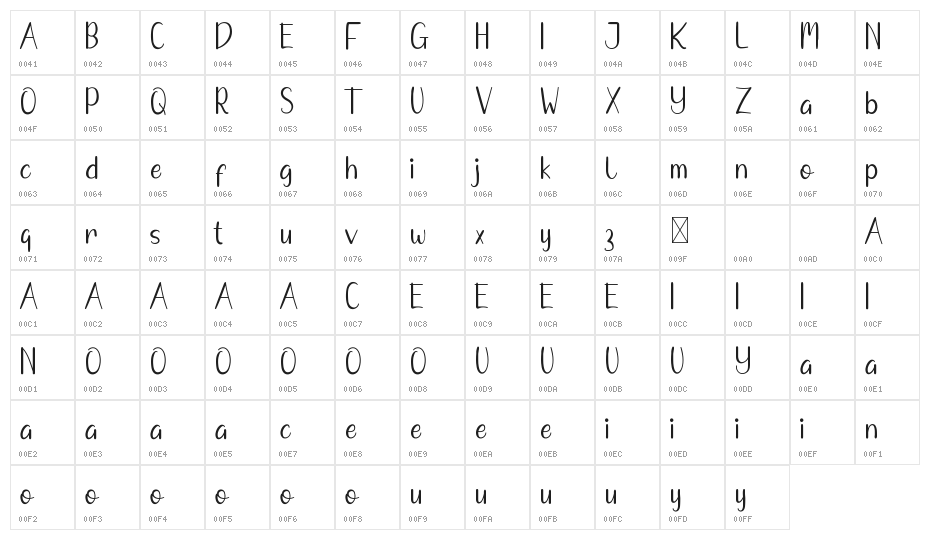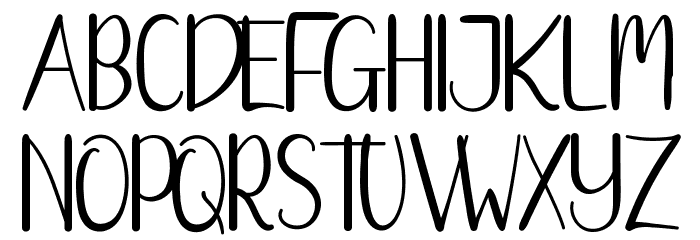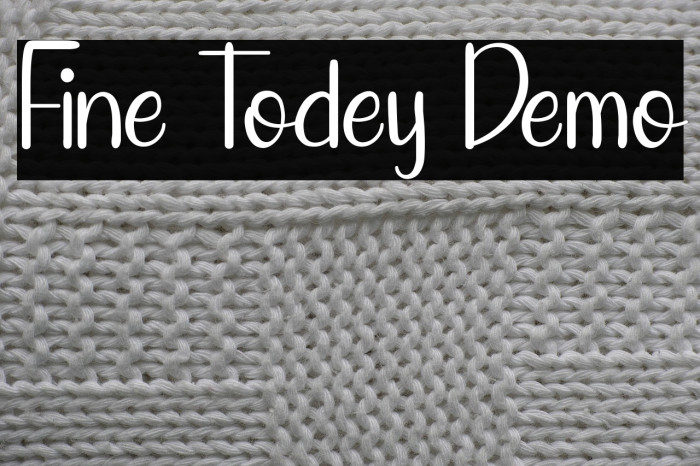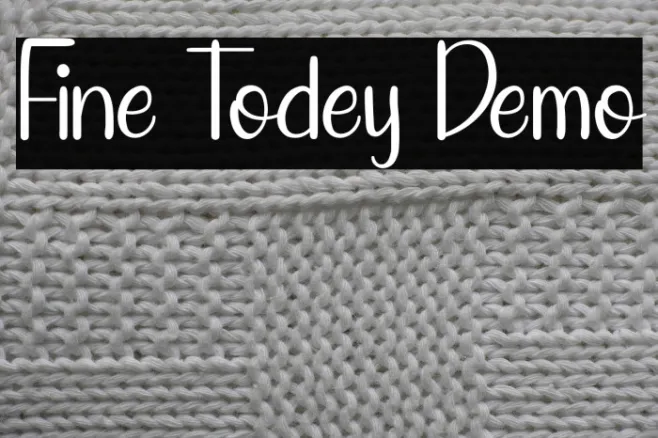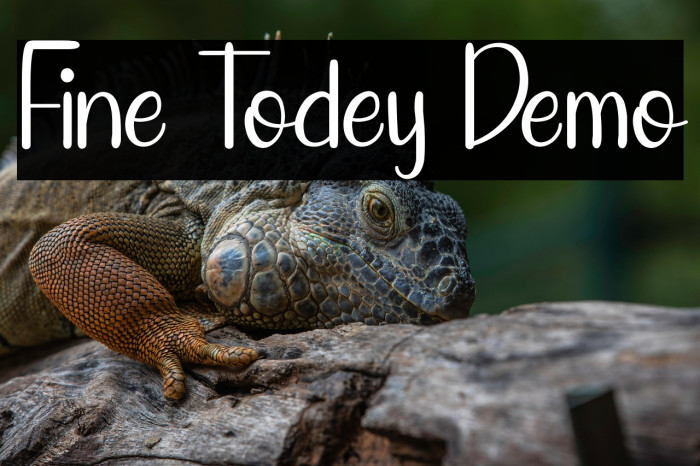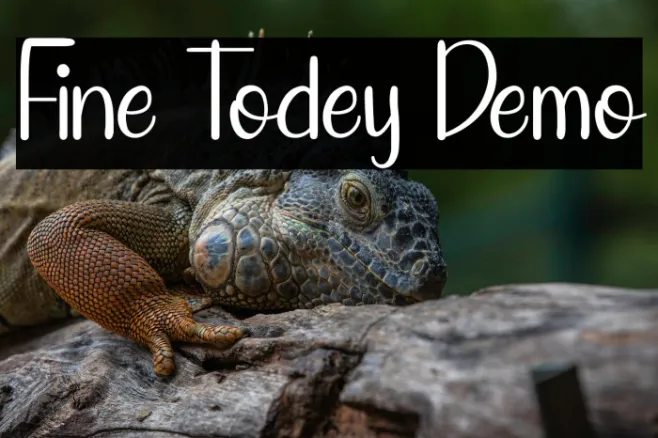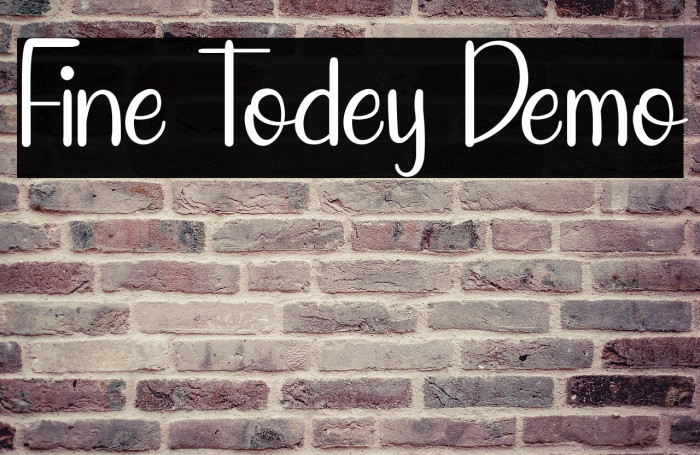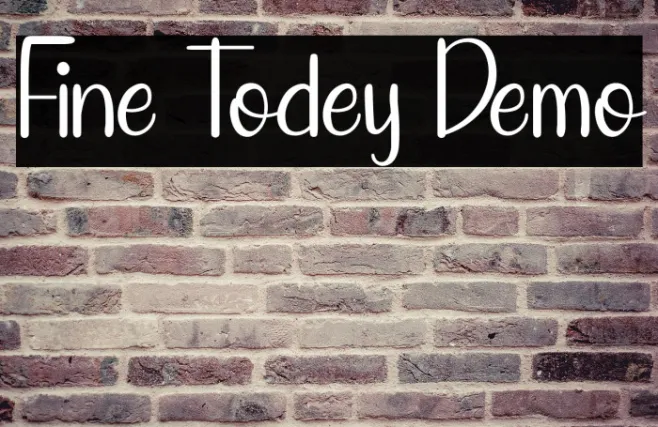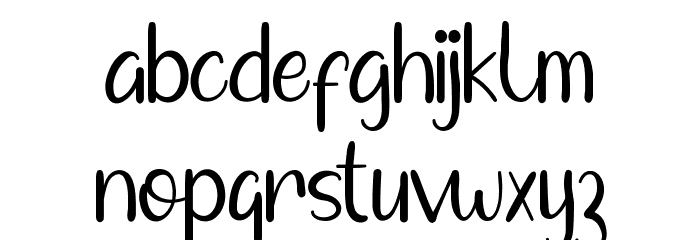
Fine Todey Demo Font
Fine Todey Demo Description
This font features a playful and whimsical design, characterized by its tall, narrow letters with a hand-drawn feel. The strokes are smooth and consistent, giving it a casual yet refined appearance. The uppercase letters are particularly elongated, while the lowercase letters maintain a more uniform height, creating a unique contrast. The font includes a full set of uppercase and lowercase letters, numbers, and a selection of special characters. Its overall style is modern and artistic, making it suitable for creative projects. The character spacing is normal, allowing for easy readability while maintaining its distinctive style.